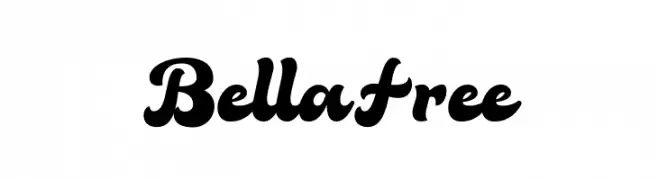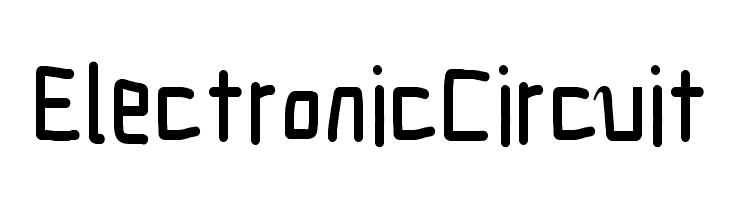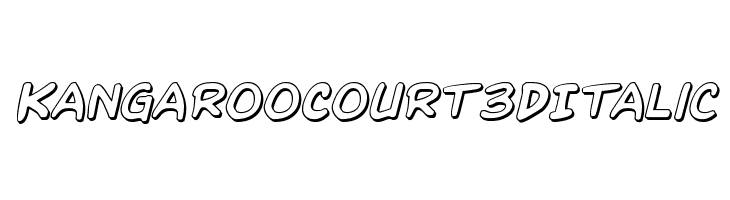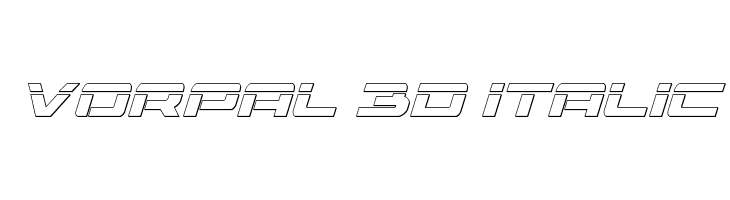
A bold, graffiti-inspired font with dynamic and edgy characters.
A playful, handwritten font with smooth, rounded edges and a casual style.
A bold italic font with dynamic strokes and a pronounced slant.
A bold, modern font with high contrast and slightly condensed characters.
Playful, handwritten font with tall, narrow characters.
Cartoonish, expressive character-based decorative font.
A playful, bold font with rounded edges and a whimsical style.
A bold, italicized font with a futuristic and angular design.
A lively and elegant script font with flowing, cursive letterforms.